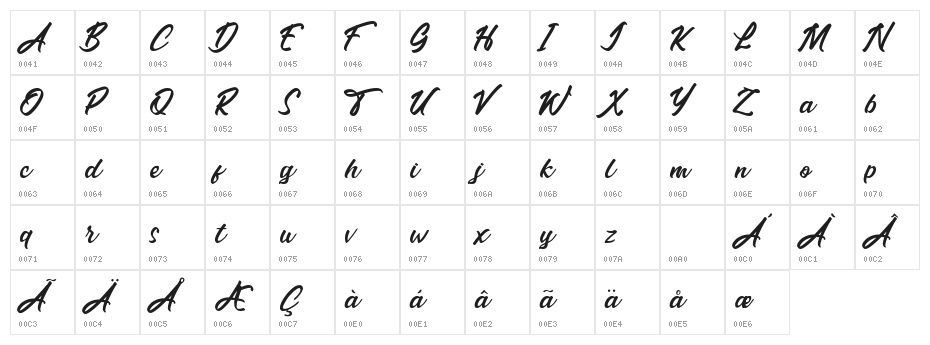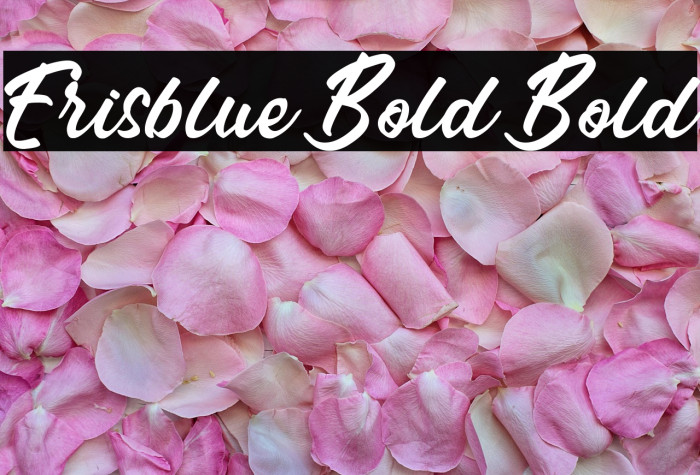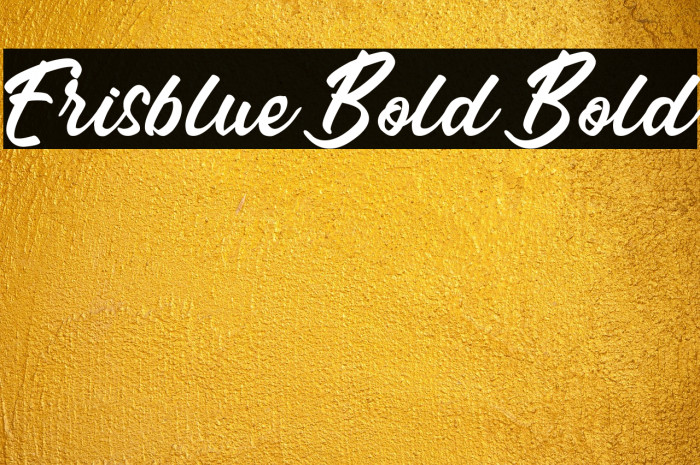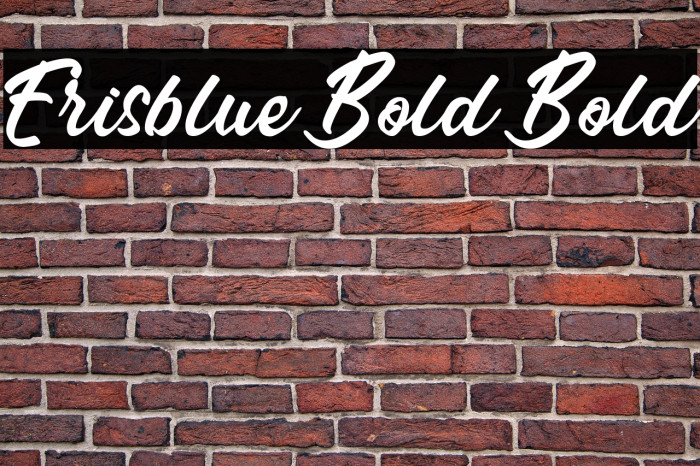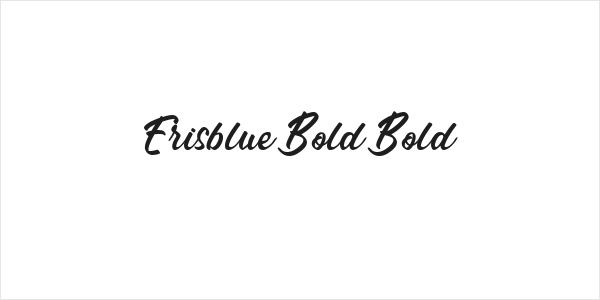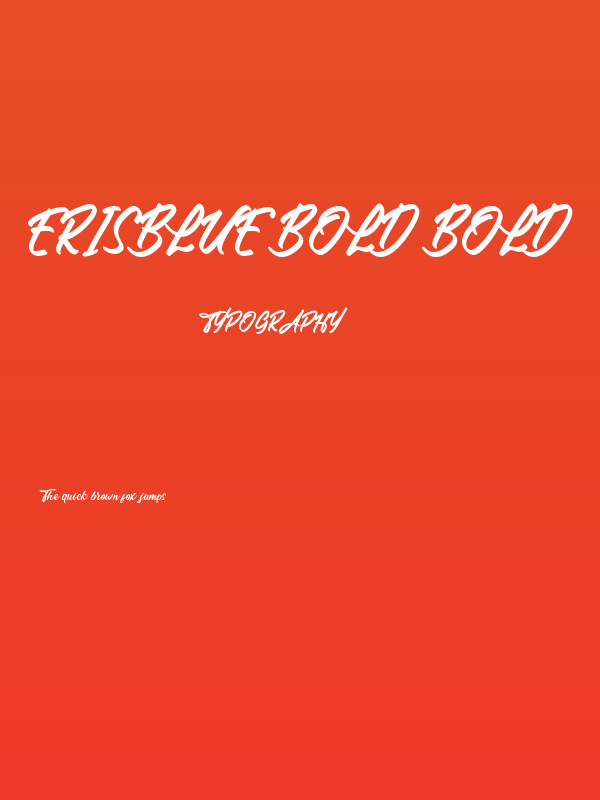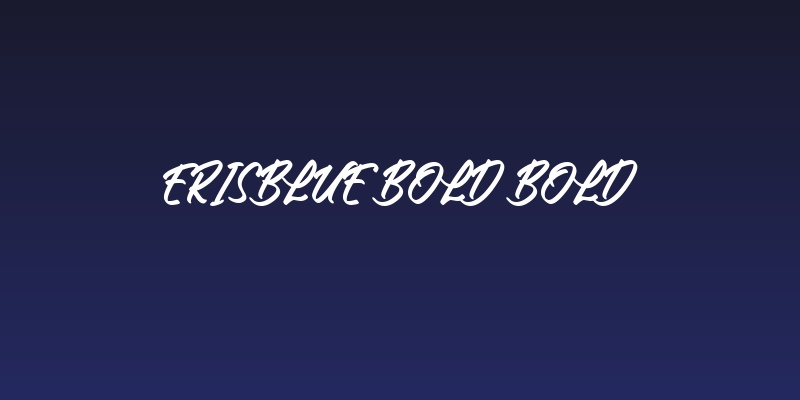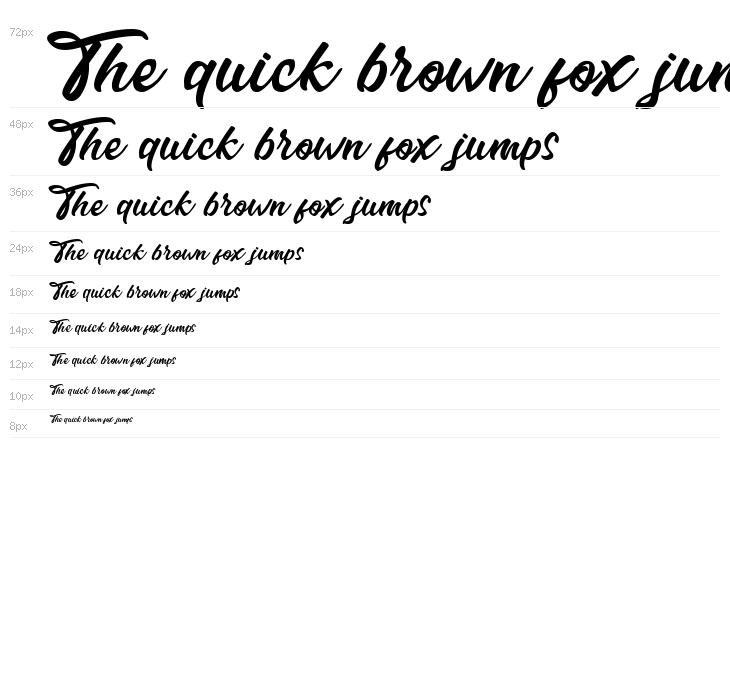
Erisblue Bold Bold Font
Erisblue Bold Bold Description
This font features a bold and expressive script style, characterized by its flowing, cursive letterforms. The strokes are thick and consistent, providing a strong visual impact. The uppercase and lowercase letters are designed with a sense of movement and elegance, making them suitable for dynamic and creative designs. The font maintains a cohesive look with its smooth curves and connected letters, which enhance its readability despite the decorative nature. The overall appearance is both modern and stylish, appealing to projects that require a touch of sophistication and flair.